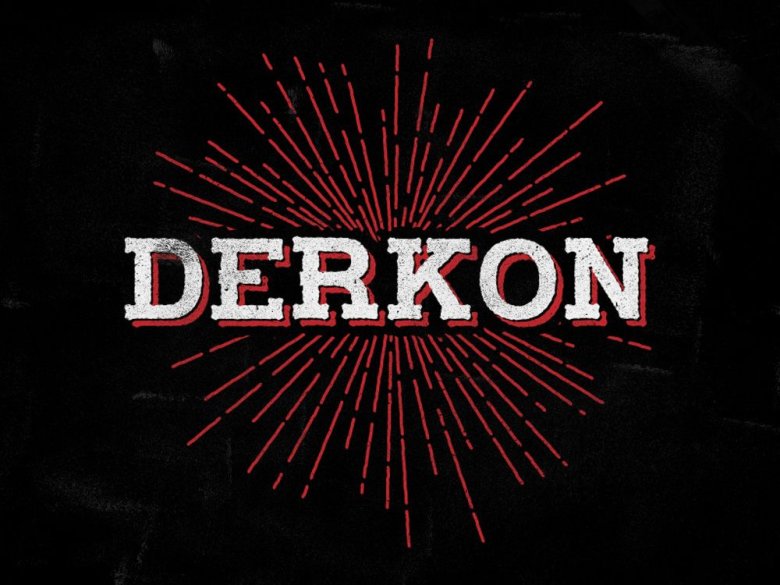
Derkon Typeface
Introducing Derkon! Derkon Typeface designed by eightonesix.net  – A vintage, retro and awesome character! With different weights, it’s perfect for magazine layouts, invitations, headers, or even large-scale artwork.